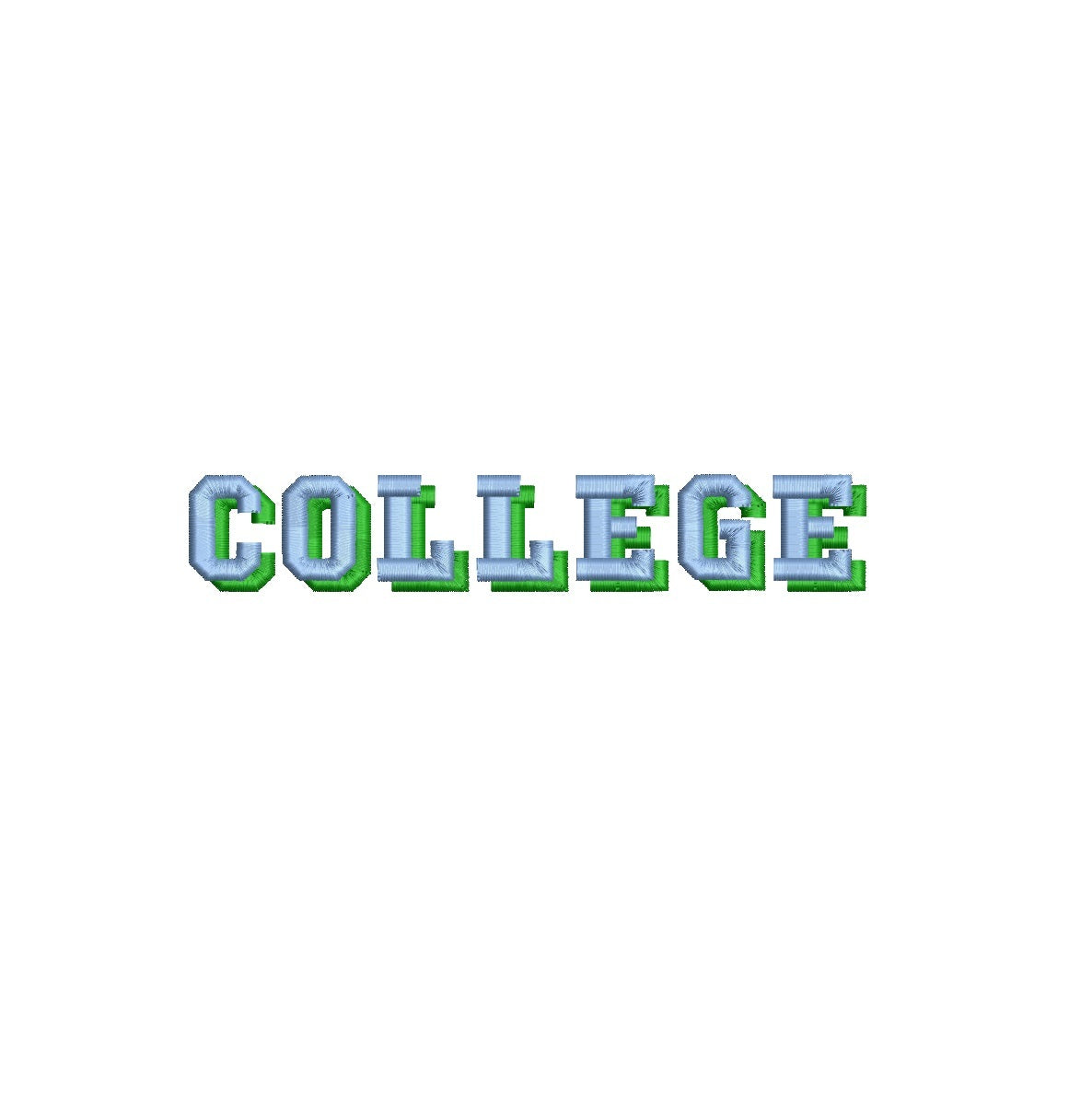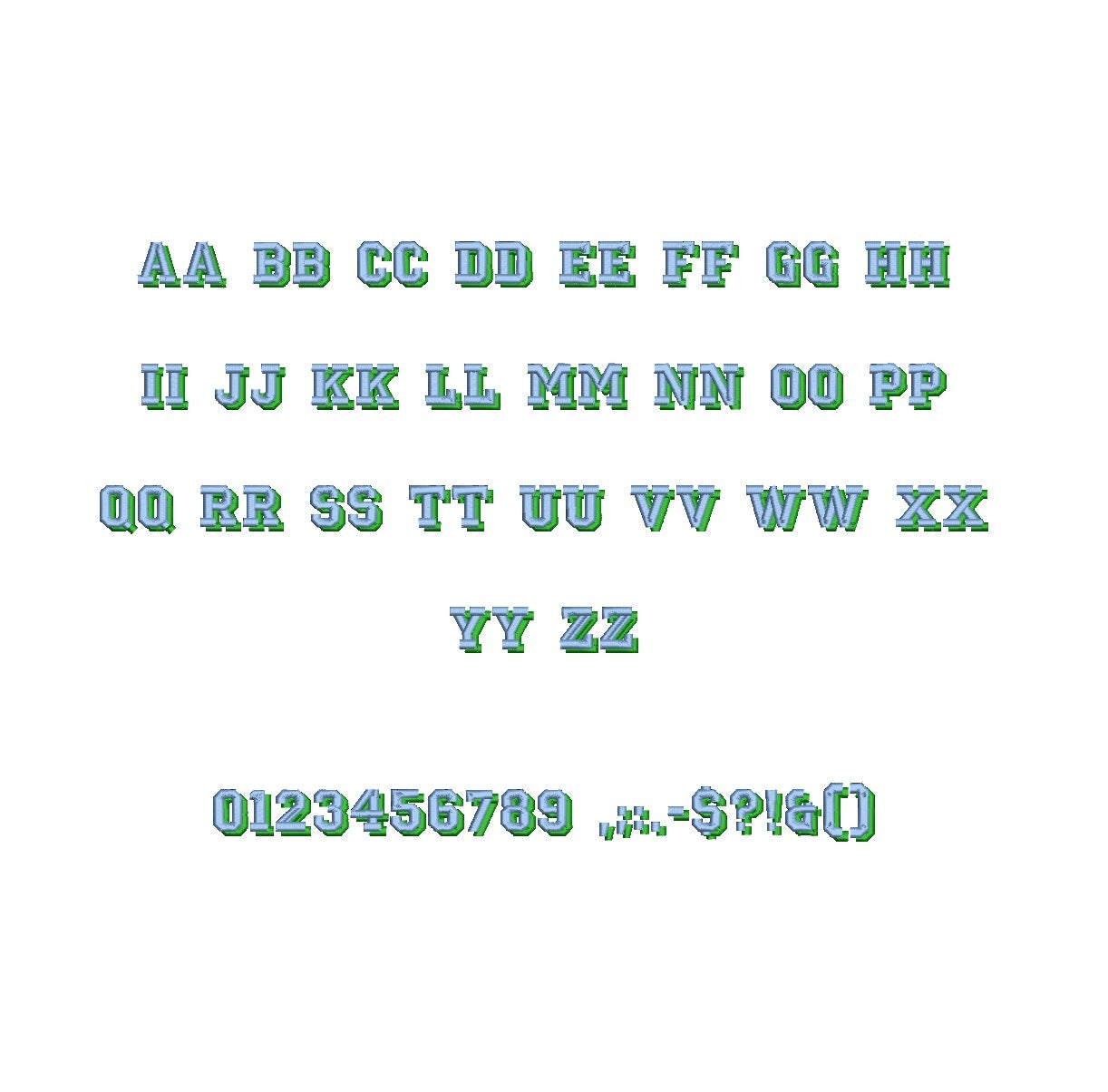
Elevate your designs with the dynamic College Shadow ESA font. Fully compatible with Wilcom Studio e4.5.6 and Hatch 3 versions and up, this font brings a sense of youthful energy and classic style to your projects. The bold shadows and clean lines of this font create a striking visual impact that sets your designs apart. Streamline your creative process and achieve impeccable results by utilizing this font with industry-leading software. Upgrade your projects with the compatibility of College Shadow ESA font and craft visuals that resonate with a vibrant spirit. Embrace creativity and nostalgia for your design journey today!